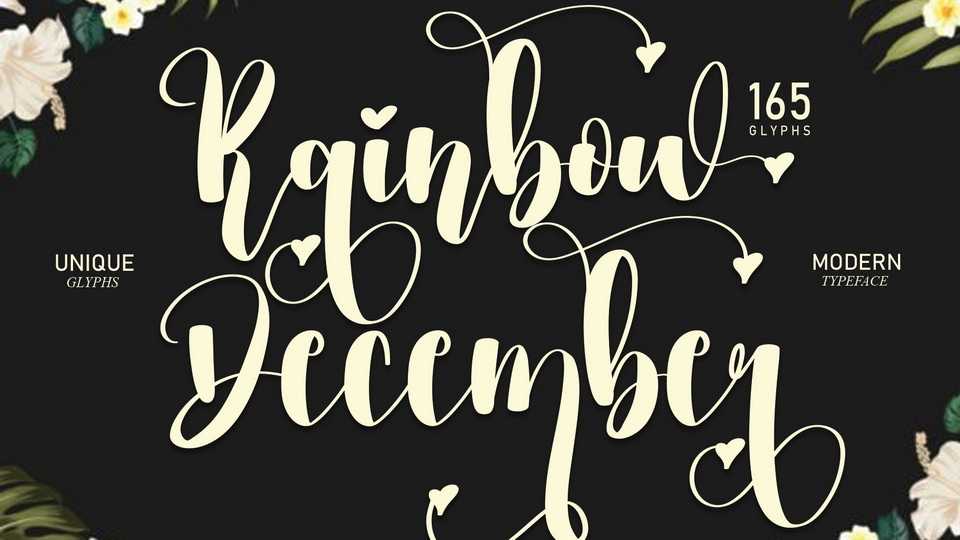
Download Rainbow December font, a charming romantic handwritten typeface made of beautiful, creative strokes. Rainbow December font is perfect for your creative ideas, both formal and informal.